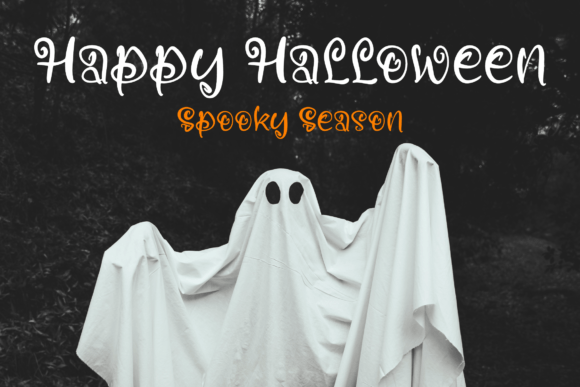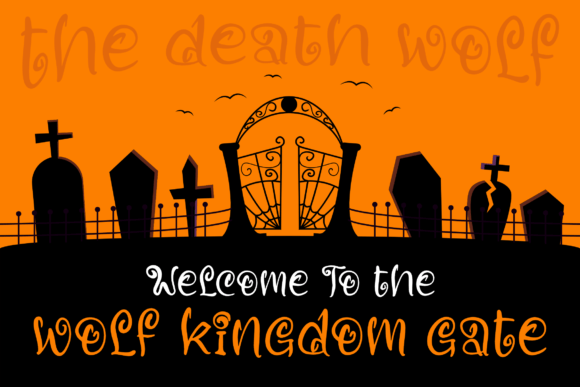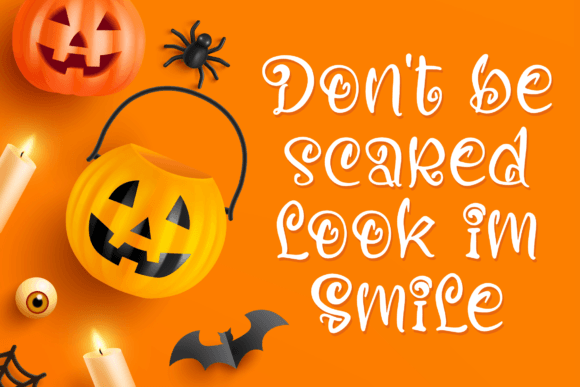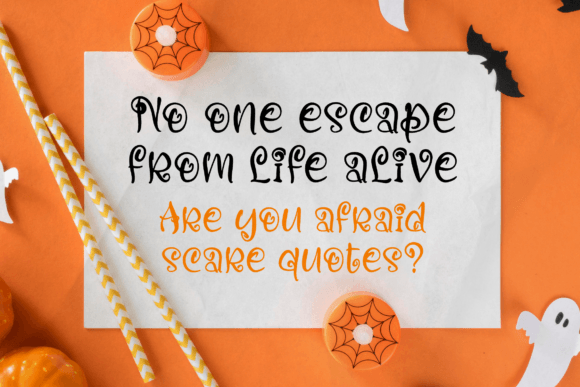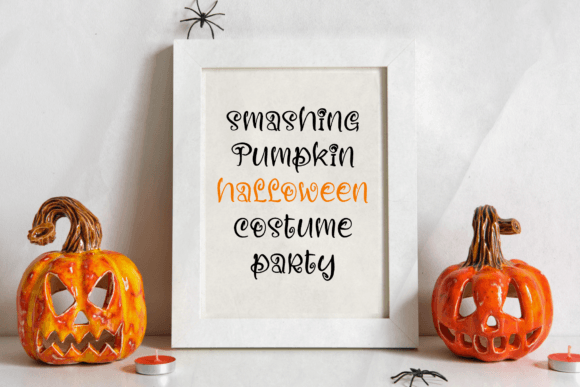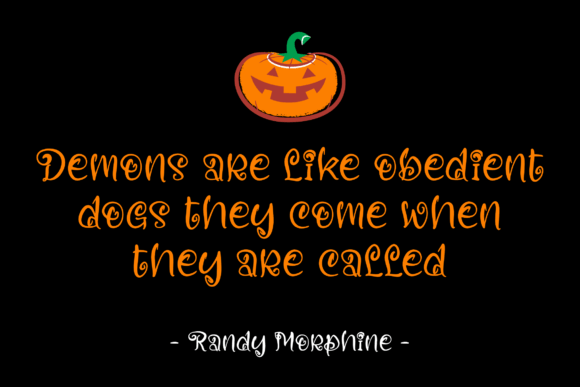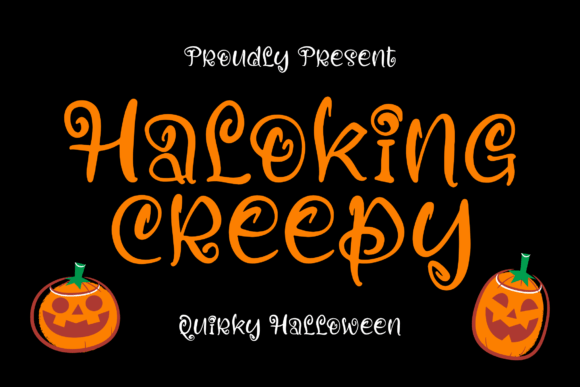
Unleash the Spook: Exploring the Haloking Creepy Font
As the witching hour approaches, designers and crafters are on the lookout for the perfect typography to add a dash of eeriness to their projects. Look no further than the Haloking Creepy Font, a quirky Halloween typeface that’s sure to cast a spell on your audience. In this article, we’ll dive into the world of Haloking Creepy, exploring its features, uses, and benefits for designers and crafters alike.
A Font that Embodies the Spirit of Halloween
The Haloking Creepy Font is a unique and eye-catching typeface that’s specifically designed to evoke the spirit of Halloween. Its creepy script taste is perfect for any project that requires a touch of spookiness, from logos and branding projects to homeware designs, product packaging, and more. Whether you’re creating a haunting logo for a horror movie or a playful design for a Halloween party invitation, this font is sure to deliver.
One of the best things about the Haloking Creepy Font is its versatility. It’s suitable for a wide range of projects, including:
- Logos and branding projects: Create a lasting impression with a creepy logo that sets your brand apart.
- Homeware designs: Add a touch of spookiness to your home decor with creepy typography on mugs, pillows, and more.
- Product packaging: Make your products stand out with eye-catching packaging that features the Haloking Creepy Font.
- Mugs and quotes: Create haunting quotes and sayings for mugs, posters, and other promotional items.
- Posters and shopping bags: Add a creepy touch to your advertising materials with this unique font.
- T-shirts and apparel: Design spooky t-shirts and apparel that will make your customers scream with delight.
- Book covers and name cards: Create eye-catching book covers and name cards that feature the Haloking Creepy Font.
- Invitation cards and greeting cards: Send out spooky invitations and greeting cards that will set the tone for any occasion.
- Labels and photography: Use the Haloking Creepy Font to add a touch of eeriness to your labels and photography projects.
- Watermark and special events: Create a lasting impression with a creepy watermark or use the font for special events like Halloween parties.
Why Choose the Haloking Creepy Font?
So, why should you choose the Haloking Creepy Font for your next project? Here are just a few reasons:
- Unique and eye-catching: The Haloking Creepy Font is a one-of-a-kind typeface that’s sure to grab attention.
- Versatile: Use the font for a wide range of projects, from logos and branding to homeware designs and product packaging.
- High-quality: The Haloking Creepy Font is a high-quality typeface that’s designed to deliver exceptional results.
Tips for Using the Haloking Creepy Font
To get the most out of the Haloking Creepy Font, here are a few tips to keep in mind:
- Experiment with different colors: Try pairing the font with different colors to create a unique and eye-catching design.
- Play with font sizes: Experiment with different font sizes to create visual interest and hierarchy.
- Combine with other fonts: Try pairing the Haloking Creepy Font with other fonts to create a unique and interesting typography.
- Use it sparingly: Use the font sparingly to create a lasting impression and avoid overwhelming your audience.